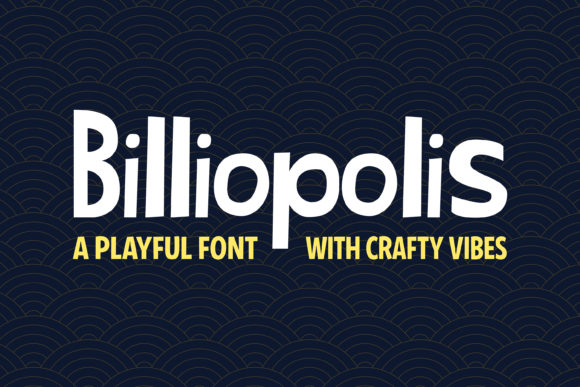
Prepare yourself to be captivated by the awe-inspiring Billiopolis font, a creation by the talented SouthernDaisyDesign. This exceptional display font exudes an irresistible charm, inviting you to embark on a journey of creative expression.
With its playfully casual demeanor, Billiopolis possesses an undeniable charisma that radiates warmth and approachability. Its whimsical curves and cheerful letterforms evoke a sense of lightheartedness, making it the perfect choice for designs that aim to spread joy and positivity.
Step into a world where imagination knows no bounds as you harness the versatility of Billiopolis. This extraordinary font effortlessly adapts to a myriad of applications, from captivating headlines that demand attention to enchanting blocks of text that flow with grace and harmony.
Whether you're crafting captivating web designs, leaving a lasting impression in print, or bringing your creations to life through the magic of animation, Billiopolis will elevate your projects to new heights of visual excellence.
Indulge in the boundless possibilities that Billiopolis offers. Its playful nature will ignite your creativity, inspiring you to create designs that resonate with your audience on a profound level. Let the friendly embrace of Billiopolis guide you towards unforgettable designs that leave an enduring mark.